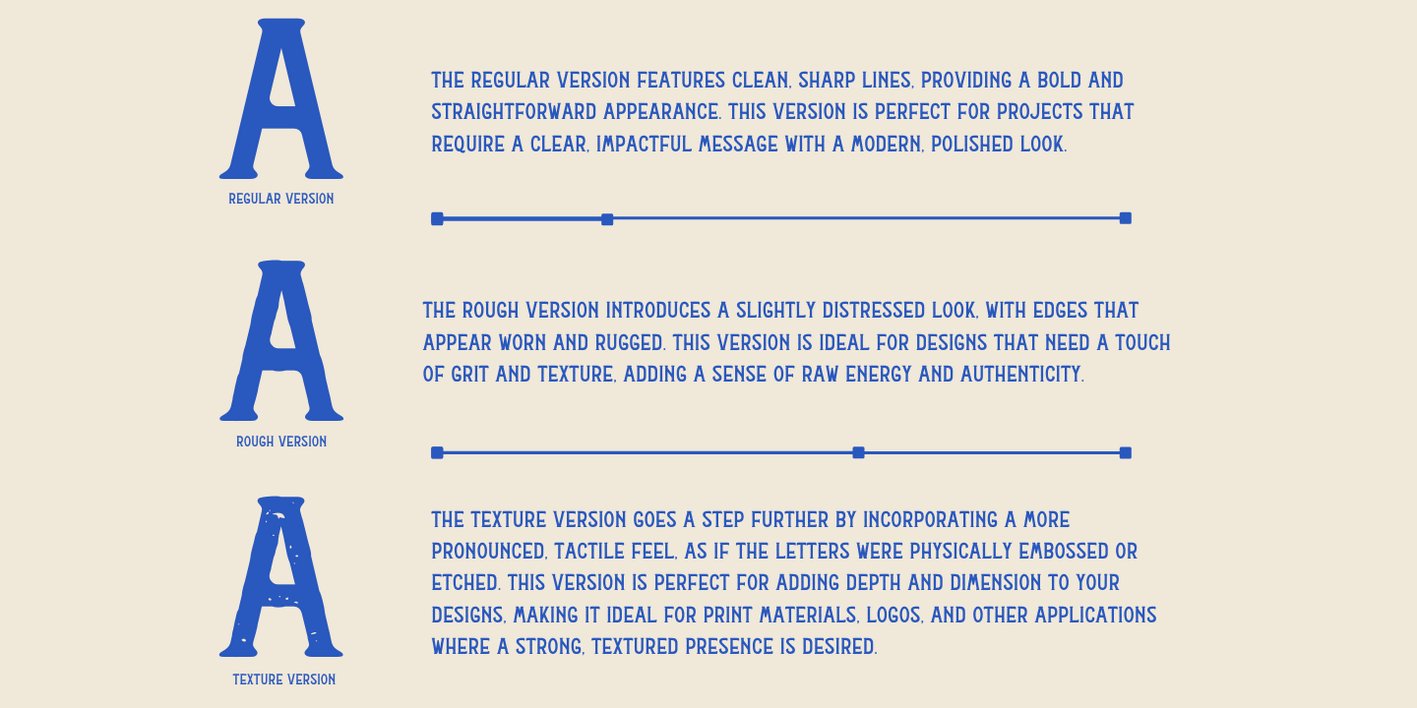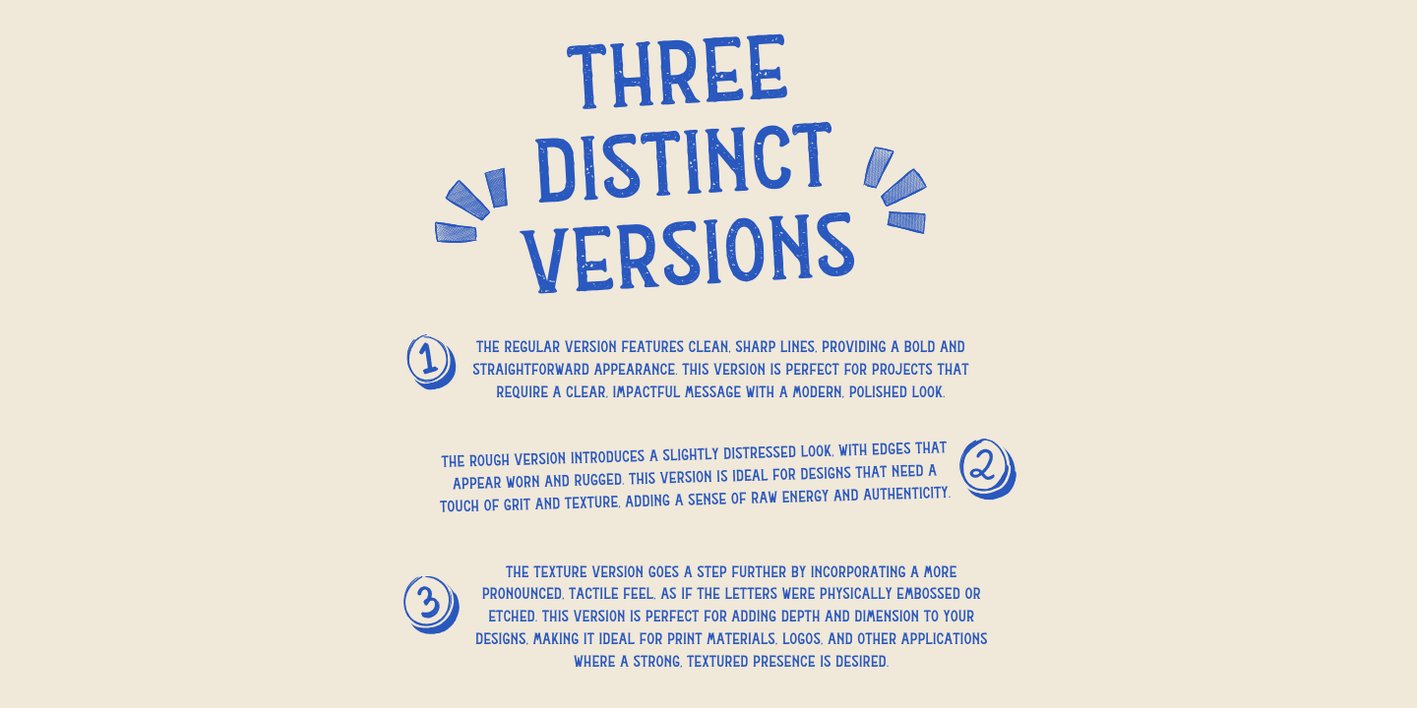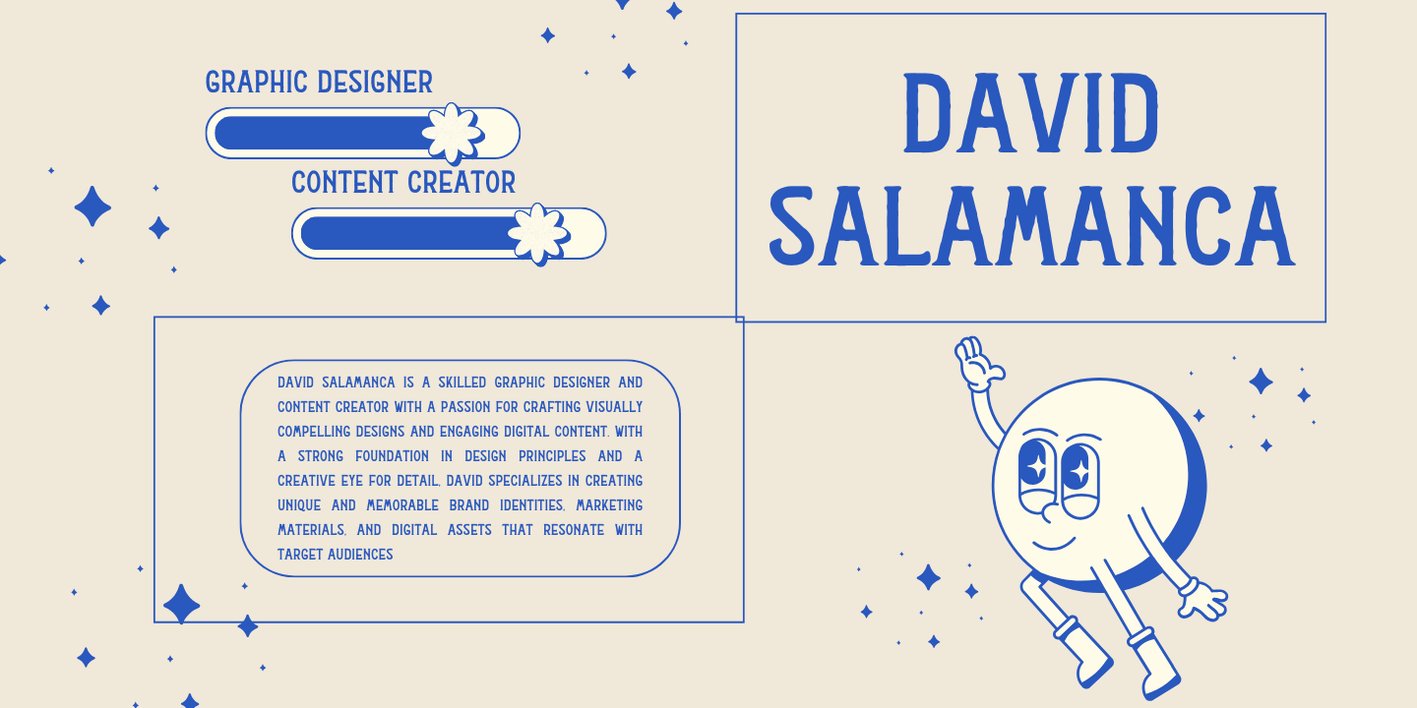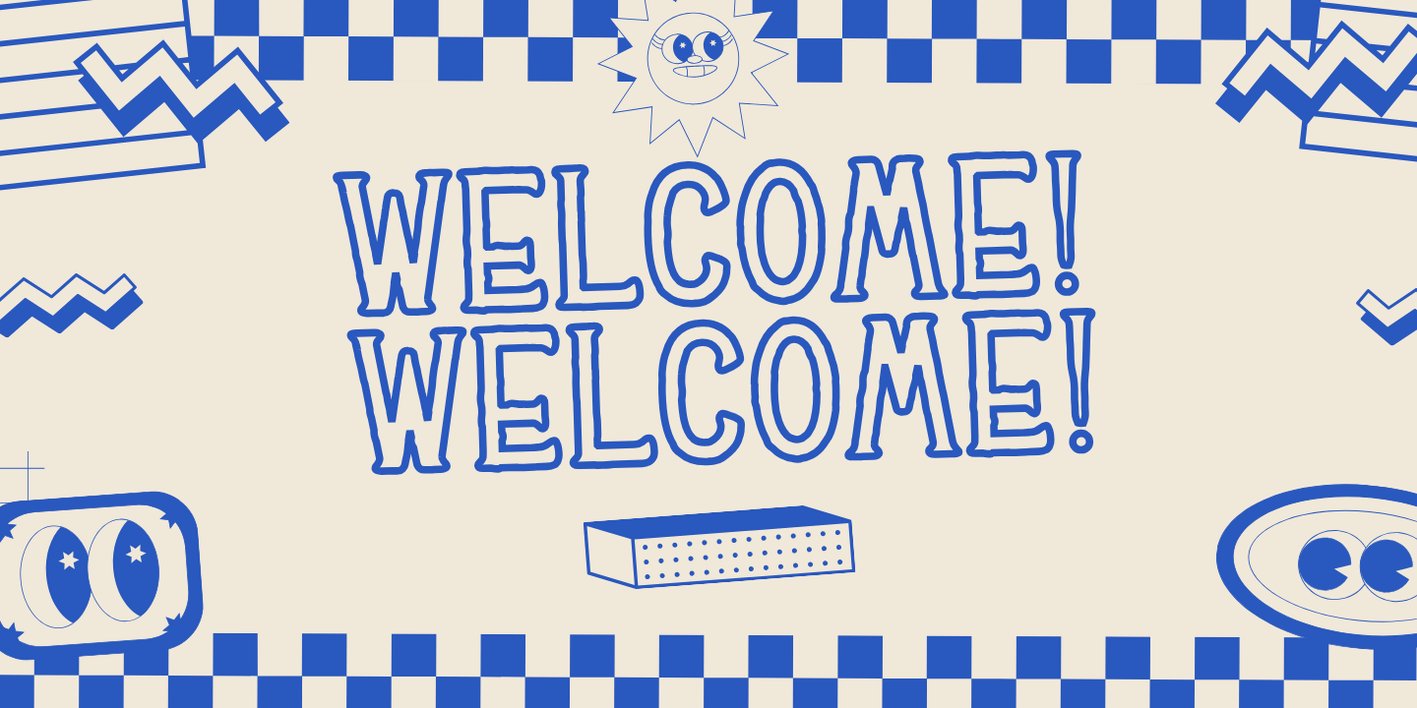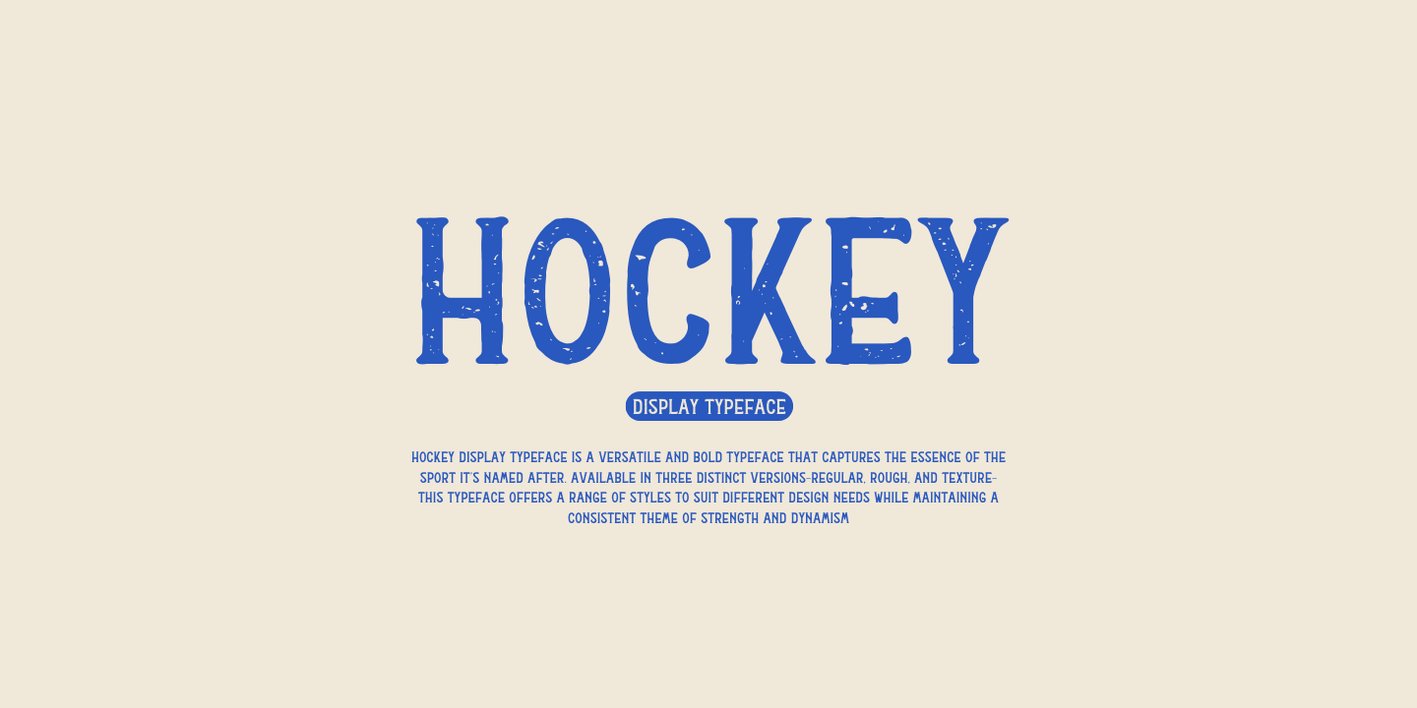
Hockey Font
Hockey Display Typeface: Regular, Rough, and Texture Versions The Hockey Display Typeface is a versatile and bold typeface that captures the essence of the sport it’s named after. Available in three distinct versions—Regular, Rough, and Texture—this typeface offers a range of styles to suit different design needs while maintaining a consistent theme of strength and dynamism.